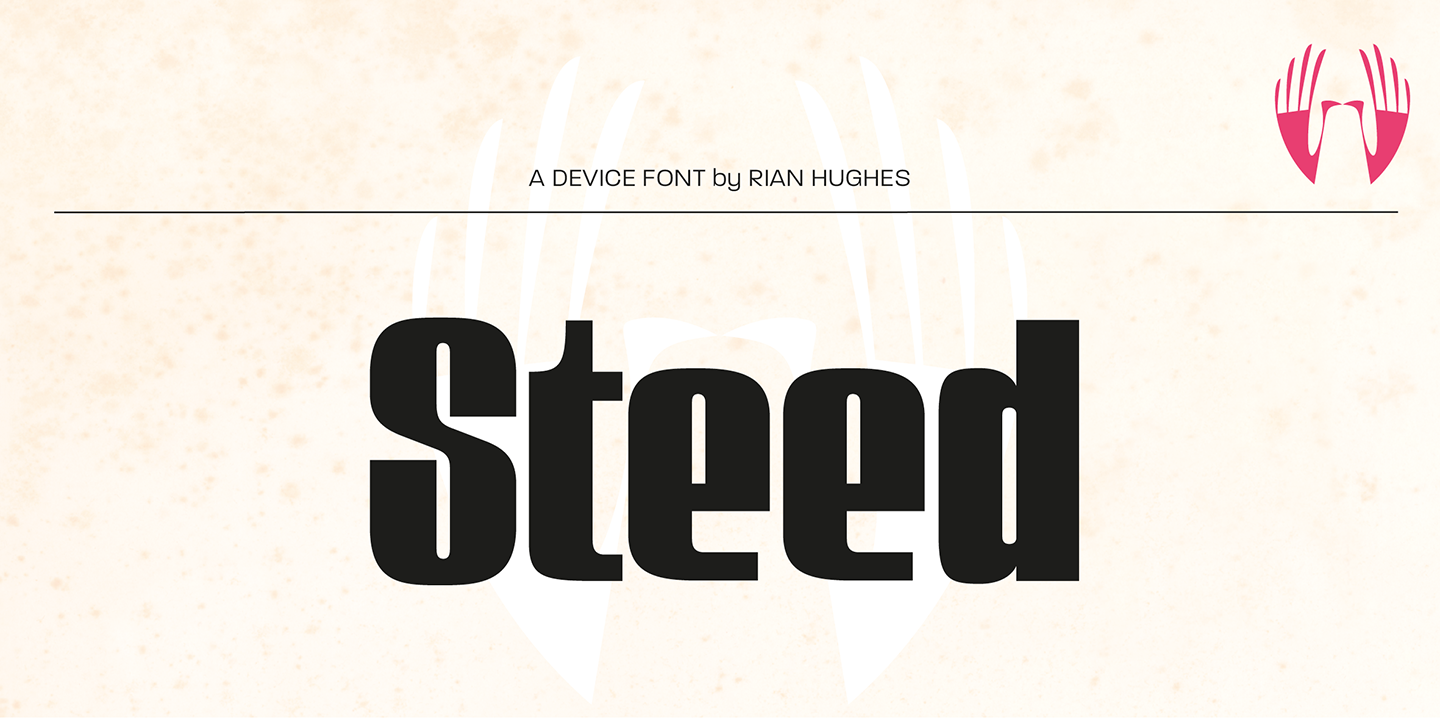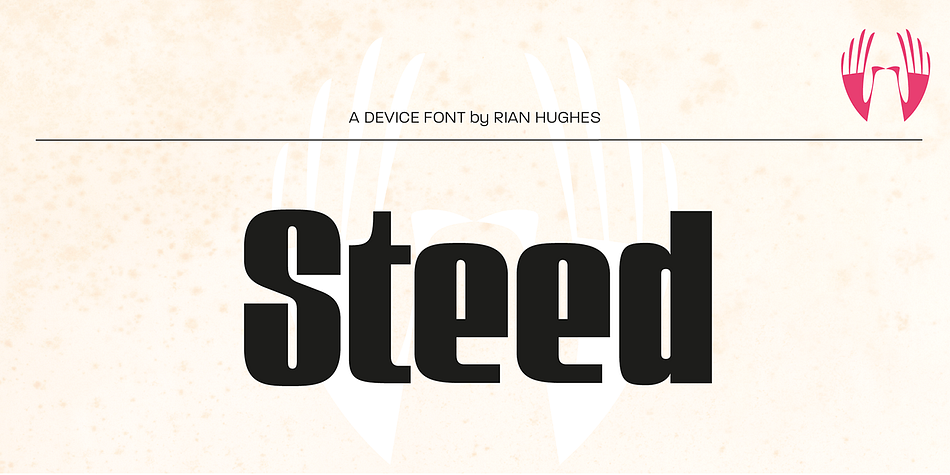
Designed by Rian Hughes, Steed is a display sans and sans serif font family. This typeface has four styles and was published by Device.
A condensed and bold obround sans inspired by 60s condensed inserat faces, with a more pronounced thick/thin stress as seen on the titles of the Avengers TV show.